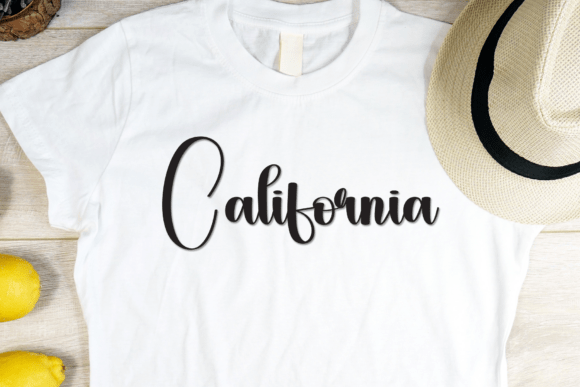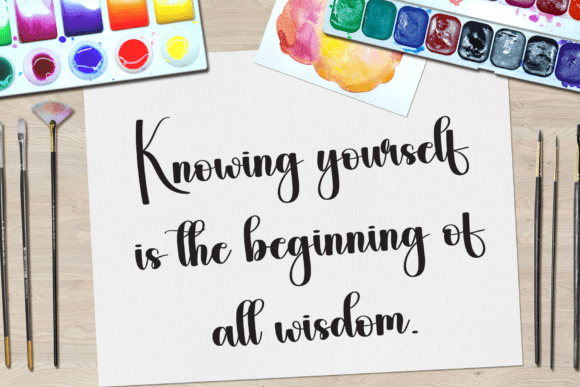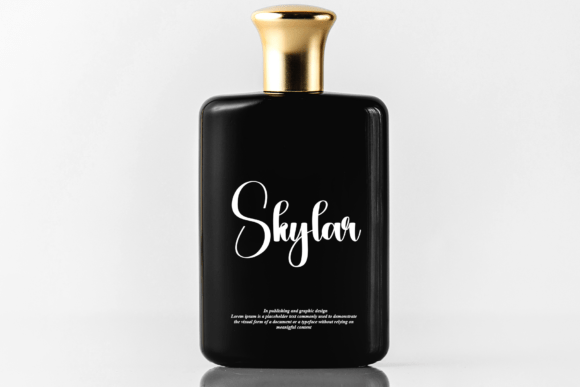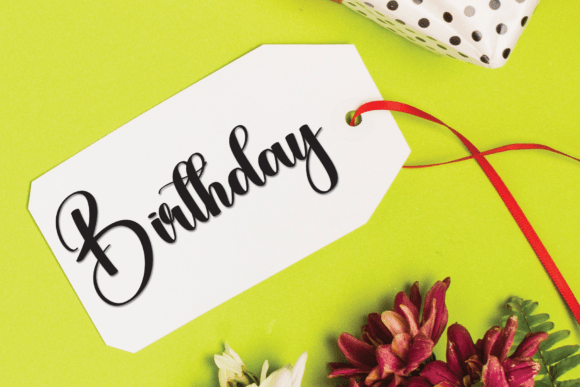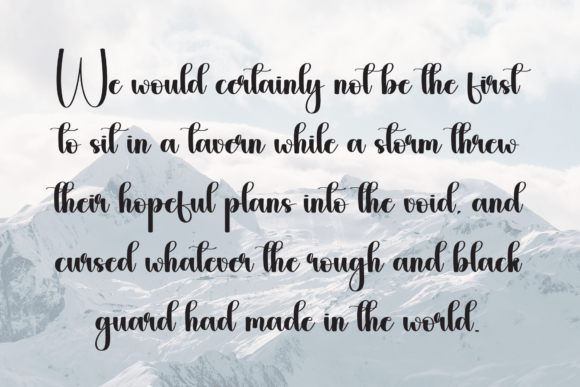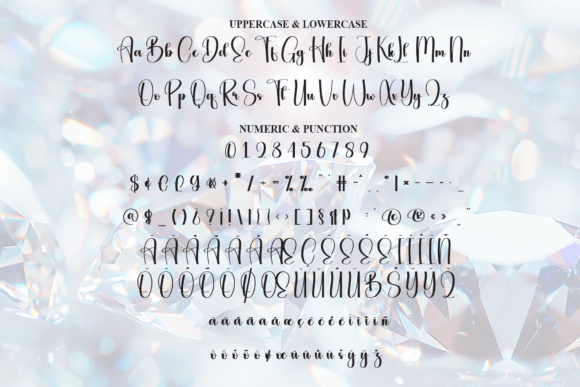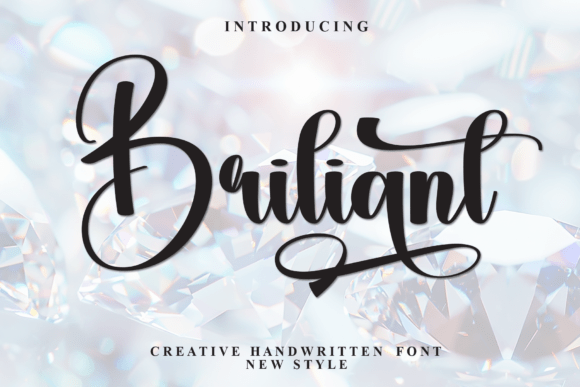
Discover the Elegance of Briliant Font: Elevate Your Designs with Sophistication
In the world of typography, fonts play a crucial role in conveying the tone and personality of a design. For designers and crafters looking to add a touch of elegance and modernity to their projects, the Briliant Font is an exceptional choice. This stylish script font is designed to exude contemporary charm while maintaining a classic, sophisticated feel. In this article, we’ll explore the features, uses, and benefits of the Briliant Font, and how it can elevate your designs to new heights.
The Beauty of Briliant Font
Briliant Font is a masterpiece of modern calligraphy, boasting graceful strokes, fluid curves, and meticulously crafted letterforms. This font captures the essence of hand-drawn calligraphy but with a modern twist that makes it versatile and fresh. The natural flow and polished details of Briliant Font make it an ideal choice for a wide range of design projects, from logos and invitations to packaging and social media graphics.
Key Features of Briliant Font
• Elegant and Modern Design: Briliant Font features a stylish and contemporary design that adds a refined touch to any project.
• Graceful Strokes and Fluid Curves: The font’s graceful strokes and fluid curves give it a natural, hand-drawn feel that sets it apart from more traditional fonts.
• Versatility: Briliant Font is highly versatile, making it suitable for a variety of design applications, including logos, invitations, packaging, and social media graphics.
• Polished Details: The font’s polished details ensure that it looks sophisticated and refined, even at smaller sizes.
Uses of Briliant Font
Briliant Font’s versatility makes it an excellent choice for various design projects. Here are some of the ways you can use this beautiful font:
• Logo Design: Create a lasting impression with a logo that exudes elegance and sophistication. Briliant Font is perfect for crafting unique and memorable logos that stand out.
• Invitations and Event Design: Add a touch of class to your invitations, wedding cards, and event designs with Briliant Font’s refined and polished look.
• Packaging Design: Elevate your product packaging with a font that conveys luxury, quality, and style. Briliant Font is sure to make your products stand out on store shelves.
• Social Media Graphics: Create engaging and sophisticated social media graphics that capture your audience’s attention. Briliant Font is perfect for crafting compelling headlines and captions.
Benefits of Using Briliant Font
Using Briliant Font in your designs comes with several benefits:
• Unique and Memorable: Briliant Font helps you create designs that are unique and memorable, setting you apart from the competition.
• Time-Saving: With its versatile design and wide range of uses, Briliant Font saves you time and effort in finding the right font for your projects.
• Professional Look: The font’s polished and refined look gives your designs a professional edge, making them suitable for high-end clients and projects.
Briliant Font is a stylish script font that offers a perfect blend of elegance, sophistication, and modernity. Its graceful strokes, fluid curves, and polished details make it an ideal choice for designers and crafters looking to elevate their designs. With its versatility and wide range of uses, Briliant Font is sure to become a staple in your font collection. Whether you’re working on a logo, invitation, packaging, or social media graphic, Briliant Font is the perfect choice for adding a refined and sophisticated touch to your designs.